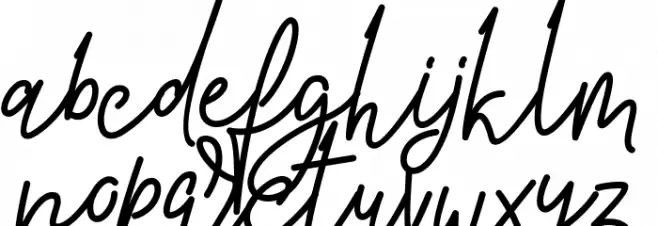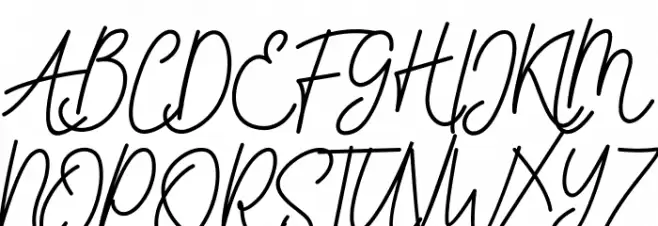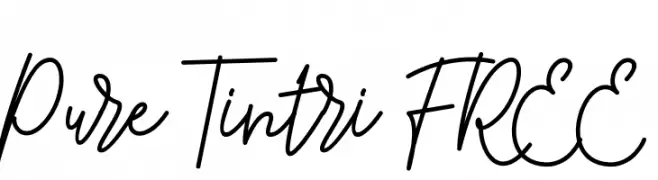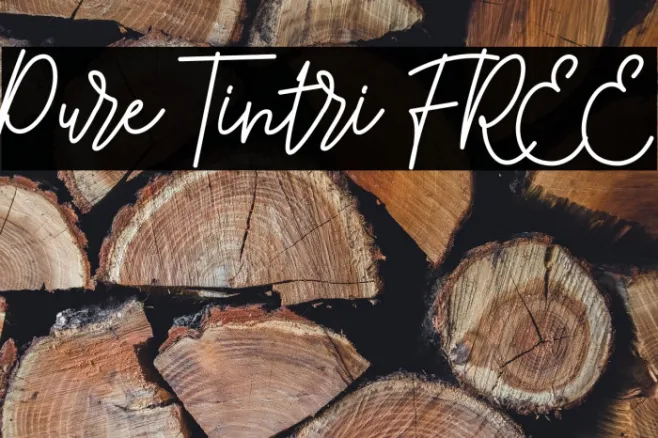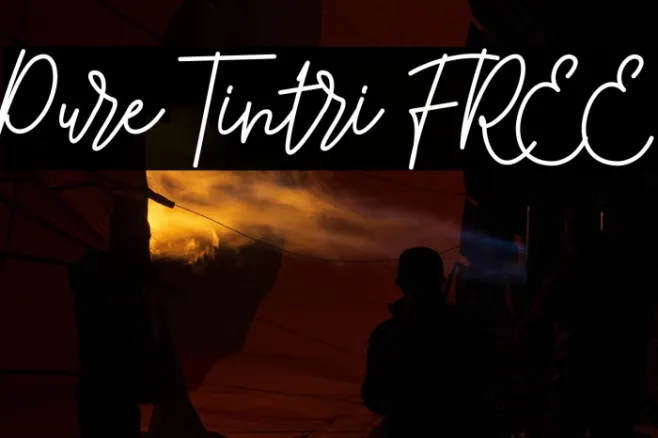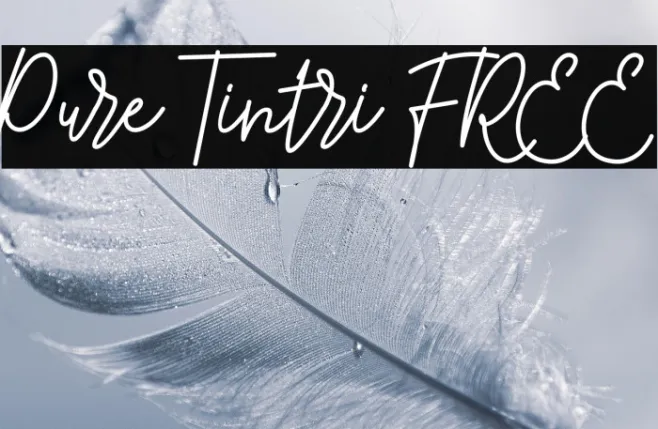
Pure Tintri FREE Font
Pure Tintri FREE Description
A flowing, cursive script font with a handwritten style, featuring elegant loops and swashes.
Elegant cursive script with a handwritten feel.
- Font: Pure Tintri FREE
- Proposed Projects: Invitations, greeting cards, personal branding.
- Category: Script
- Character Spacing: Tight
- Use Case: Logos, Headlines